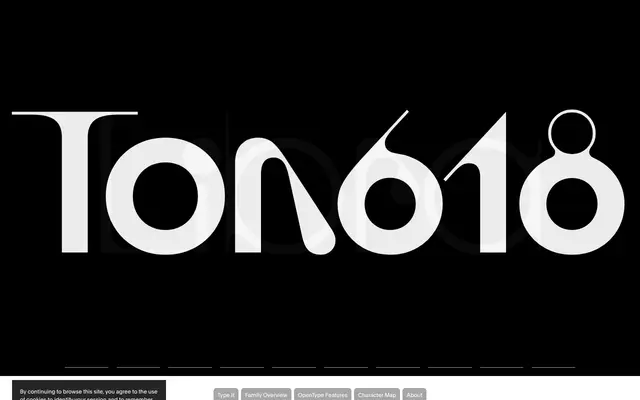
Void
Optimo · Malte Bentzen
Void specimen from Optimo
Malte Bentzen's blobby display typeface from a research project into abstract typographic shapes, in three weights with a variable axis.
A display typeface by Malte Bentzen drawn from a research project into abstract typographic shapes that are not defined by standard writing tools. Suspended between past and future, Void's blobby shapes carry a magnetic fluidity reminiscent of solvent molecules, challenging the rational basis of the alphabet. After interest from designers wanting to use the lettering, Bentzen developed the project into a complete typeface with Thin, Regular and Bold weights and an Upright Variable axis.
Optimo describes Void as an original display typeface drawn from a research project into abstract typographic shapes not defined by standard writing tools, with blobby forms reminiscent of solvent molecules.